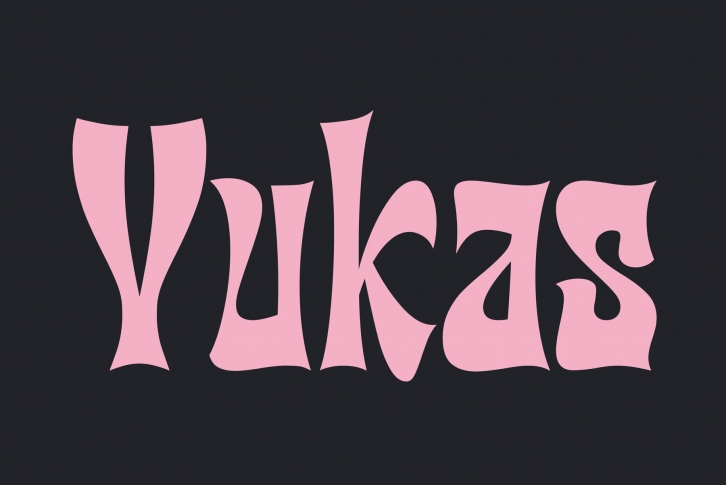
Yukas is a funky and sexy typeface where the proportions are based on the optical balance between black strokes and white shapes. Ideal to enjoy on a large scale. It takes its references from the psychedelic movement and old school western movie posters with those big, heavy capital letters.Includes several Open Type alternatives to customize your design however you want.